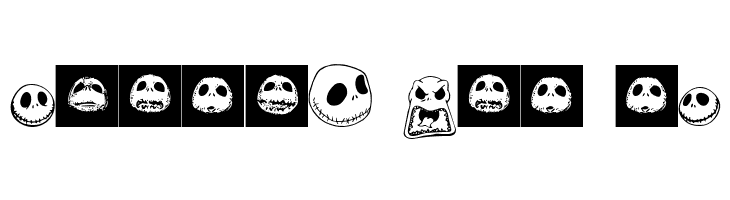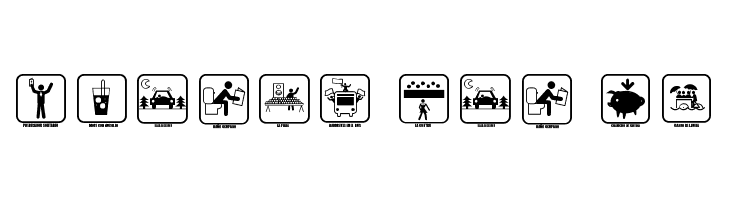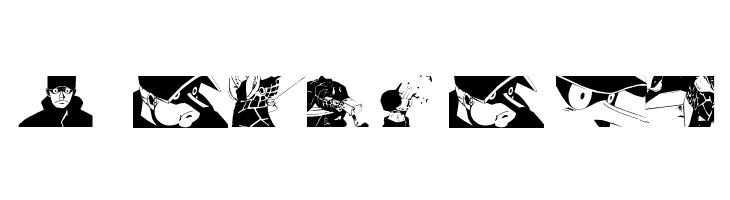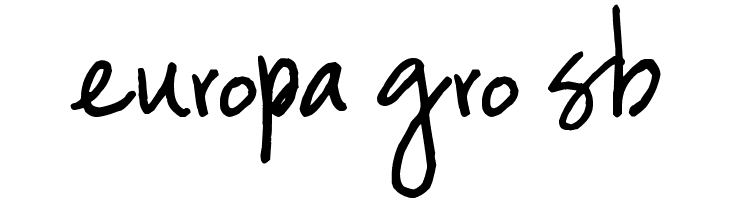
A decorative dingbat font with cartoon character faces.
Hand-drawn, doodle-style decorative font with playful icons.
Casual, hand-drawn font with a playful, skate-inspired style.
Hand-drawn, skateboarding-themed decorative font with playful illustrations.
Hand-drawn, skate-themed decorative font with playful illustrations.
Cartoon face-based decorative display font with expressive characters.
Minimalist pictogram icons with bold, clear silhouettes in rounded squares.
The image features hand-drawn illustrations, not a standard font.
A playful set of cartoon-style skateboarding illustrations.
A playful and dynamic script font with a handwritten appearance.
A bold, whimsical font with playful swirls and curls.
A playful, textured display font with unique patterns in each letter.
A whimsical, curly font with a playful, handwritten style.
A whimsical and playful font with elegant curves and decorative elements.
A playful, handwritten font with bold strokes and a casual, dynamic style.
A dynamic and fluid handwritten font with cursive letterforms.
A playful, handwritten font with irregular, organic letterforms.
A playful, rounded font with bold strokes and a friendly vibe.
A dynamic handwritten font with fluid strokes and a casual elegance.
A whimsical and decorative font with playful curls and loops.
A dynamic and flowing script font with an elegant, handwritten style.